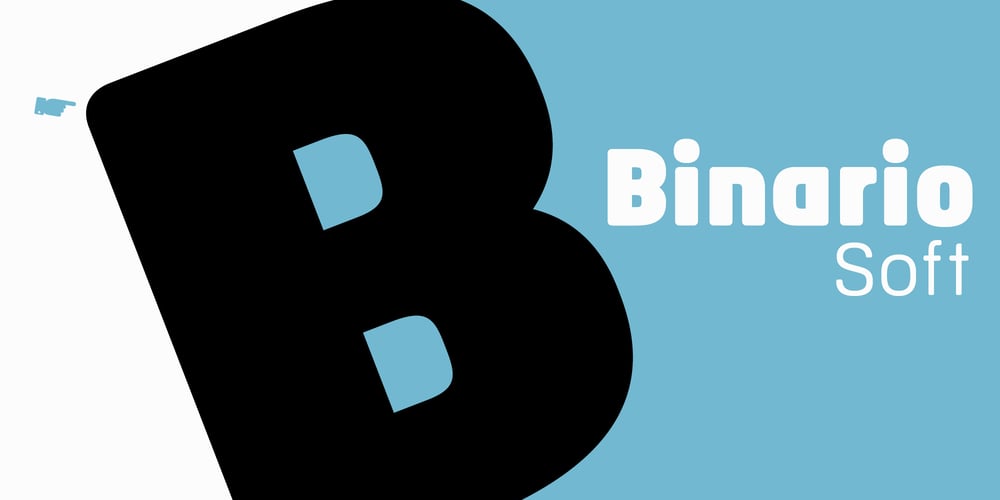
Binario Soft Font Family was designed by Donald Tarallo and published by Tarallo Design. Binario Soft contains 6 styles and family package options. Binario Soft is a friendly typeface with rounded edges, offering a warm and soft impression. It comes in three weights with matching obliques. Drawn with subtle references to Art Deco, this type is ideal for a clean, warm, and modern look in branding, posters, magazines, and screen-based projects. The light weight is good for short body text. The regular weight exudes confidence, making it suitable for both body and heading text. For impactful headlines, the bold weight is excellent. The clear weight distinction make it easy to create organized text.Binario Soft is a gently rounded version of Binario, which is also available on this vendor’s website.